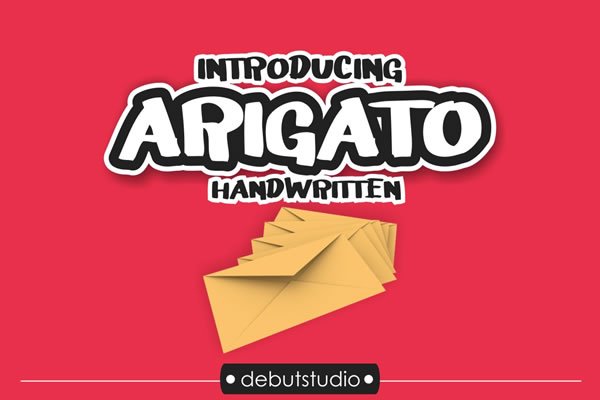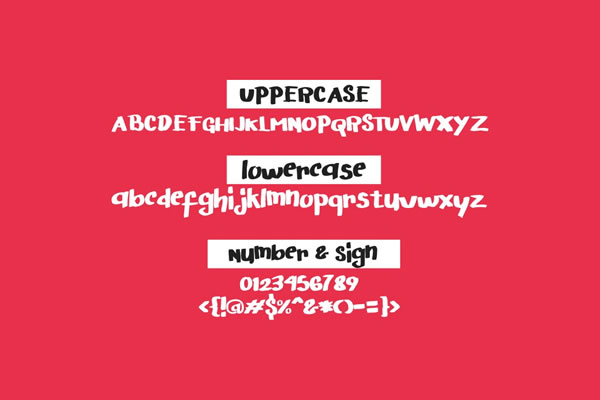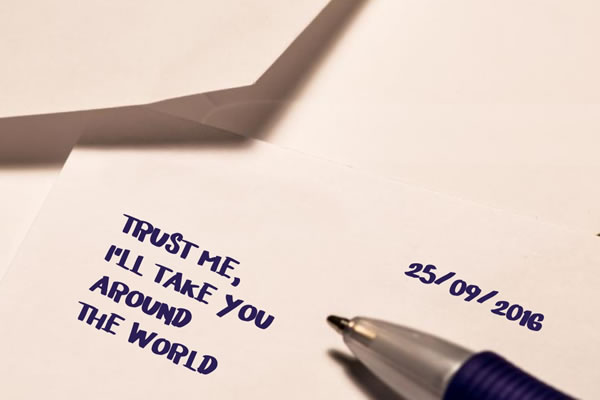
Discovering the Art of Hand-Drawn Typography
There’s something magical about that moment when a creative idea strikes, and you can’t wait to bring it to life. For designers, this feeling is a familiar friend – the spark that sets off a chain of inspiration, experimentation, and creation. It’s the thrill of exploring new possibilities and pushing the boundaries of what’s possible. And for those who crave that authentic, human touch, there’s a font that’s about to become your new best friend.
Meet Arigato Font, a beautiful hand-drawn marker font crafted by the talented team at Debut Studio. This charming font is more than just a typographic tool – it’s an invitation to add warmth and personality to your designs. With Arigato Font, you’ll be able to infuse your work with a sense of handmade charm, making it a valuable addition to any designer’s toolkit.
- Unique Characteristics: Features a unique blend of modern and traditional Japanese design elements, making it perfect for Asian-inspired designs.
Arigato Font Review
Overall, I think the Arigato Font is a nice addition to any designer’s toolkit. Here are some things that work well:
- ✨ Unique design: The font has a distinctive and quirky feel that can add some personality to a design. It’s perfect for projects that need a bit of whimsy.
- ✨ Clear readability: Despite its unusual design, the font is still easy to read, making it suitable for body text and other large blocks of text.
- ✨ Great for Asian-inspired designs: The font’s Japanese-inspired design makes it a great choice for projects that need an Asian flair.
- ⚠️ Limited font weights: The font only comes in a few weights, which can make it difficult to use for complex designs that require a range of font weights.
- ⚠️ Not ideal for formal designs: While the font is great for playful projects, it may not be the best choice for formal or professional designs.
In conclusion, I think the Arigato Font is a fun and versatile choice for designers who want to add some personality to their projects. While it may not be suitable for every design, it’s a great option for those who want to create unique and eye-catching designs.
Arigato Font is ideal for creating elegant and sophisticated designs in Canva.
Arigato Font is perfect for creating intricate and detailed designs in Adobe Photoshop or Illustrator.
Arigato Font is ideal for creating professional and polished presentations or documents in PowerPoint or Word.
Arigato Font is perfect for:
- Menus and pricing lists
- Signage and banners
With Arigato Font, you can create stunning and elegant designs that make a lasting impression.